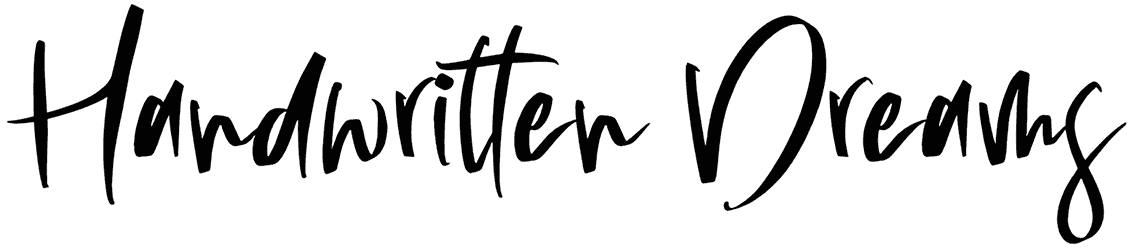
Handwritten Dreams Font
Making memorable and timeless graphic content is not a difficult task anymore with the help of a magical script font such as Handwritten Dreams that adds a personalized touch to your artwork and makes it stand out alongside its counterparts.
This handwritten font comes with a cursive style that dances along the baseline, so you can easily instill a sense of classic, dynamic, or delicacy in the audience’s minds. Due to its sophisticated flow, it doesn’t have good readability.